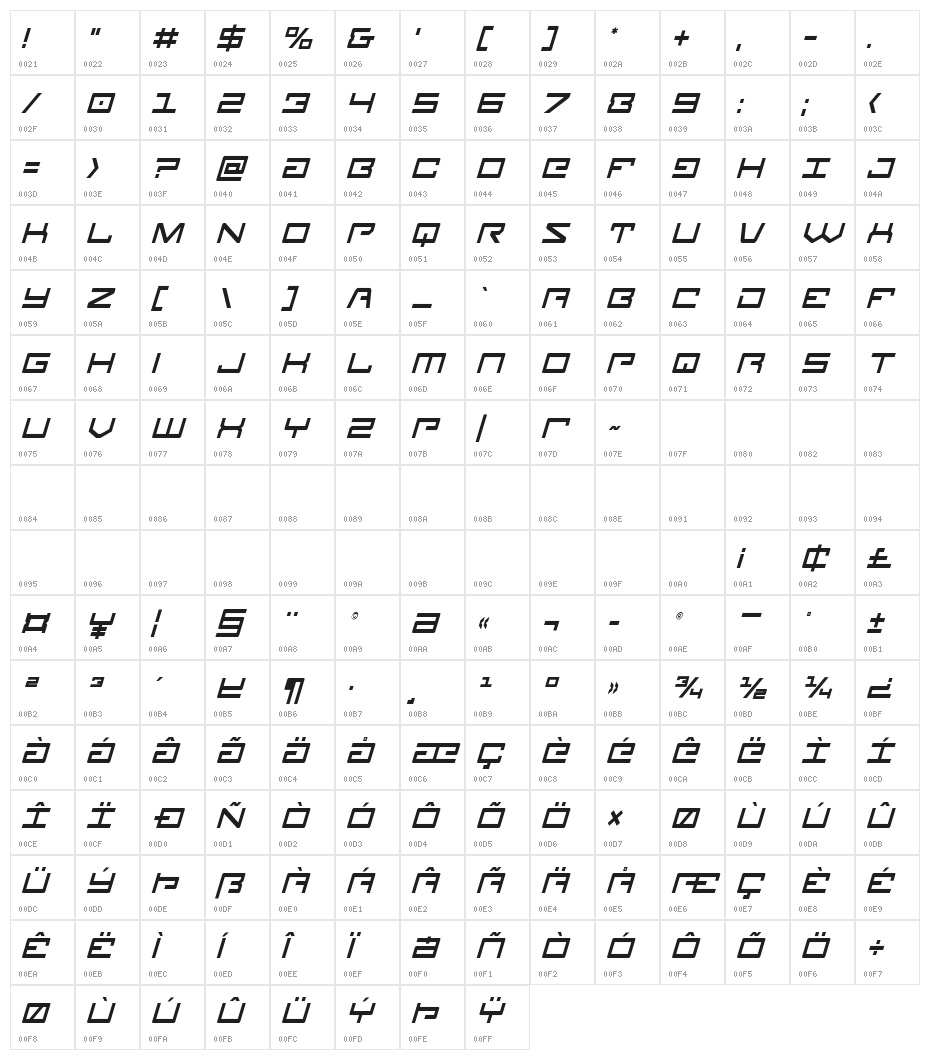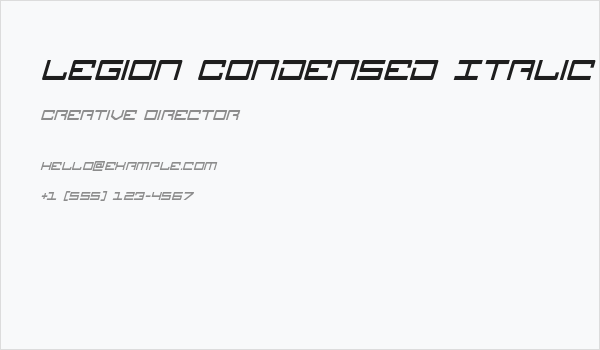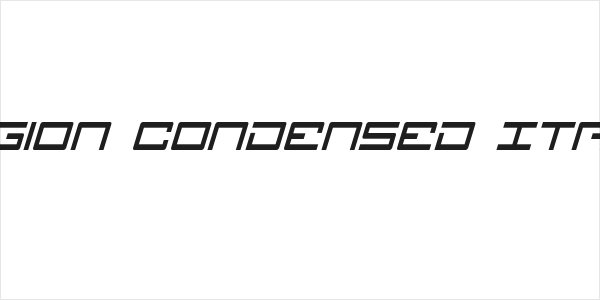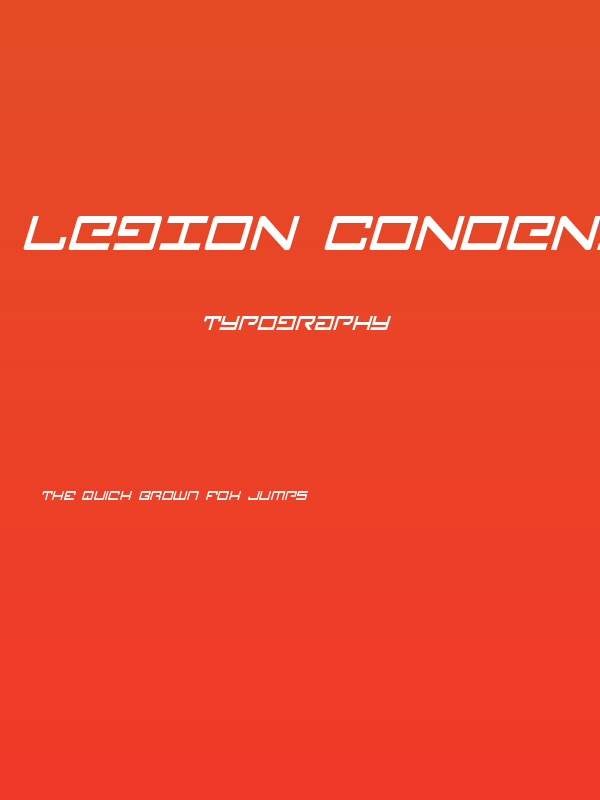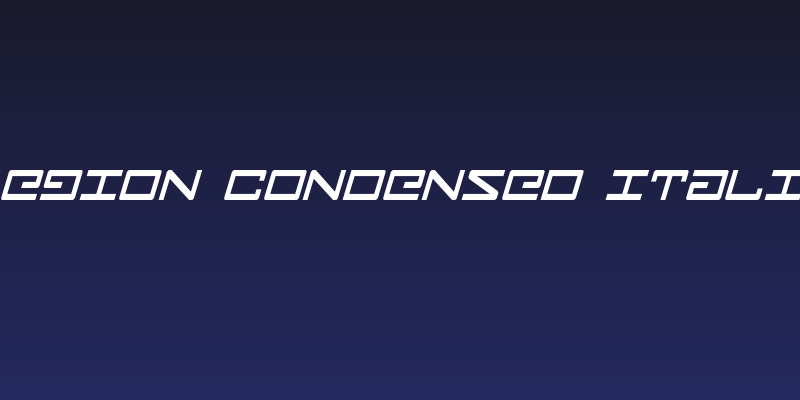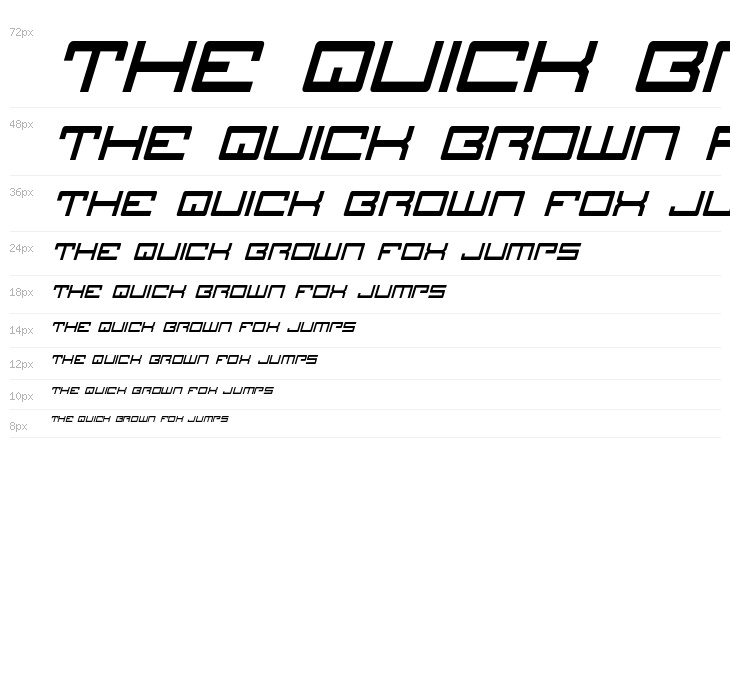
Legion Condensed Italic Font
Legion Condensed Italic Description
This font features a futuristic and angular design, characterized by its condensed and italicized form. The letters are sharply defined with a geometric style, giving it a modern and edgy appearance. The uppercase and lowercase letters maintain a consistent slant, enhancing the italic effect. The numbers and special characters follow the same angular and condensed style, ensuring uniformity across all glyphs. This font's unique design makes it stand out, suitable for projects that require a bold and modern aesthetic.
| Proposed Projects | Ideal for sci-fi themed designs, technology branding, video game titles, and modern posters. |